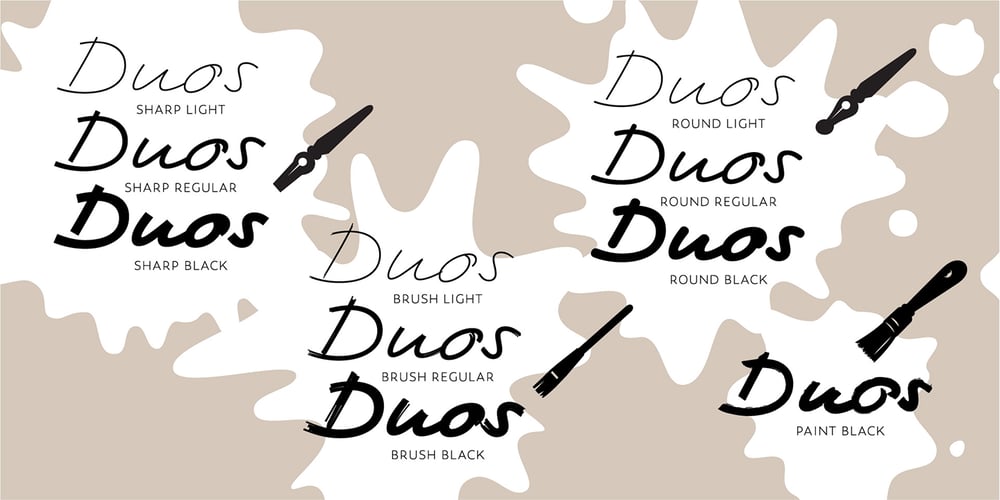
Duos Pro Font Family was designed by Bas Jacobs, Akiem Helmling, Sami Kortemäki and published by Underware. Duos Pro contains 11 styles and family package options. Duos Pro, a script for illusionists, comes in 10 styles. Whatever style you pick: apply this speedy monolinear handwriting font in large sizes, because it is made for catching the attention. Take Duos Sharp, which comes with speedy strokes and sharp endings in light, regular and black weights. Or pick Duos Round, and its 3 styles with a softer voice and round endings. Some people call those endings “funky ball noses“, an odd but appropriate description. Round styles look more like round tip speedball lettering, but contrary to most speedball letterings they’re written with a very high speed. Especially Duos Round Black is more cuddlesome than its sharper counterpart. For an even more intuitive feel, we added two more sets: Duos Brush & Duos Paint. Duos Brush combines monoline strokes with brush beginnings and endings, for that graphical, freshly lettered touch. A closer look will reveal how its brushed tails vary all the time. Duos Paint is made up out of rough & artistic painted strokes, with all its accompanying shortcomings. In contradiction to the finesses of lighter weights, Duos Paint Black scores in being the most nonchalant and impressionistic. Poésie brutale! As well as having the option to choose between (or mix) these 10 styles, Duos Pro has additional hidden functionalities. For example, every style has many alternate lettershapes and ligatures, offering various different results and lengths to display every single word. Or manually add one of the swashes for more emphasis. A bonus font, Duos Tools, includes tool icons, strokes and banners. If that ain’t enough, throw in some polysemic letters for smart, ambiguous communication if you like. Want to become a signpainter? Then be a signpainter. Always wanted to be an artist? This is your chance! Duos Pro boosts your look. Make your visual vocabulary as grandiose, dramatic, sensitive or picturesque as you want. But whatever you do, don’t hesitate to apply Duos Pro “short & big”!